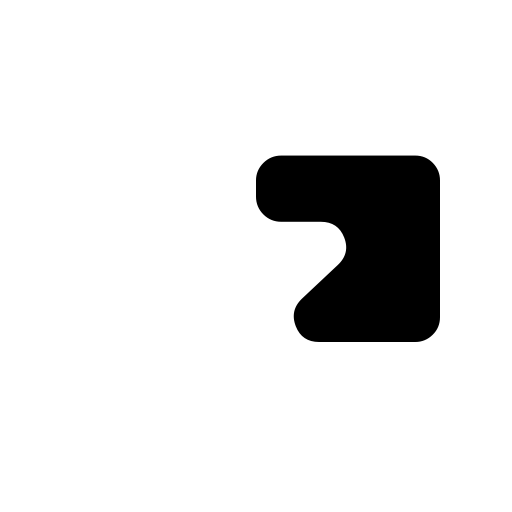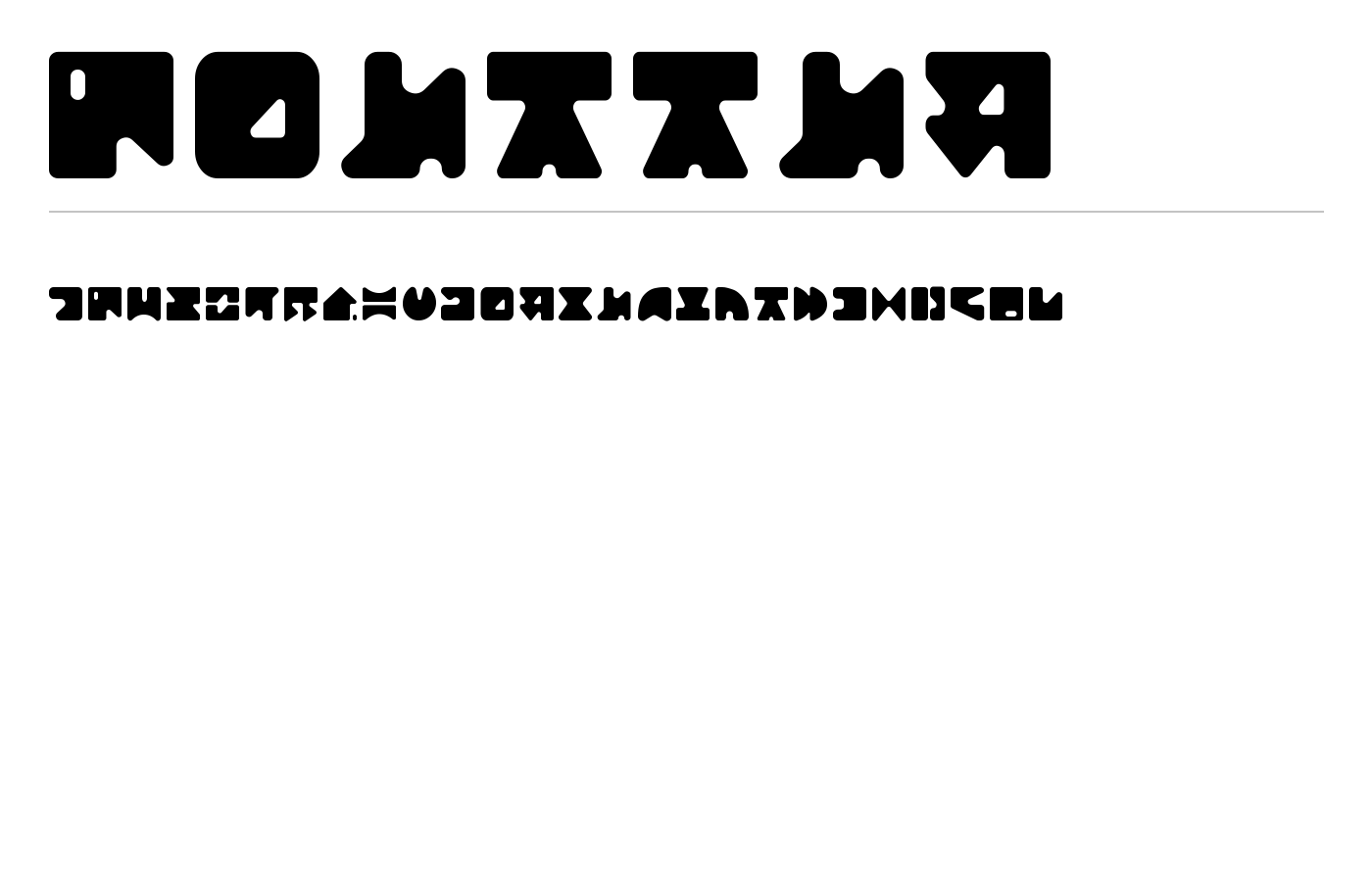
Blossom Font is a bold, geometric display typeface with thick, blocky strokes and playful rounded edges that give it a unique, almost futuristic look. Its heavy weight and compact letterforms make it ideal for eye-catching headlines and logo designs where a strong visual impact is needed. This font works best for creative projects that seek a quirky, modern vibe with a distinctive personality.